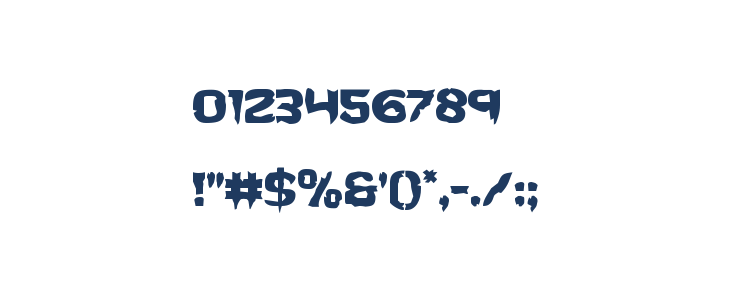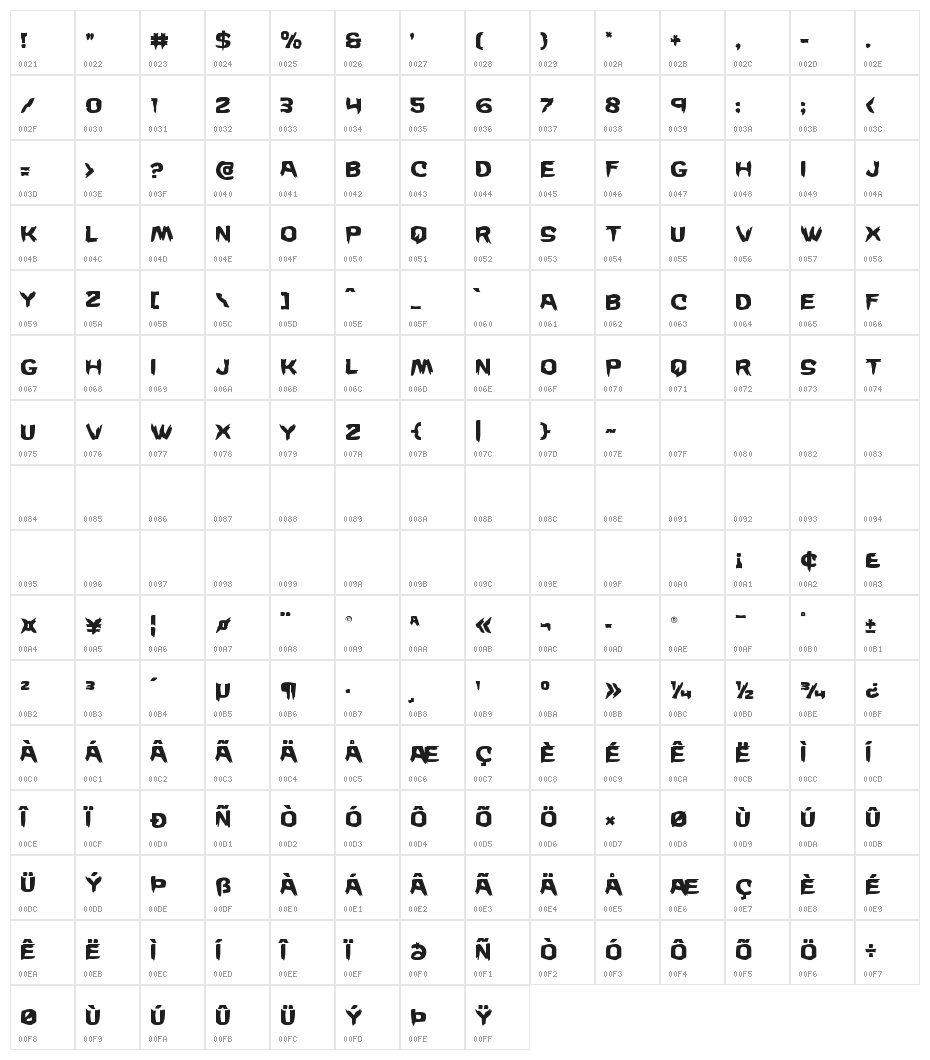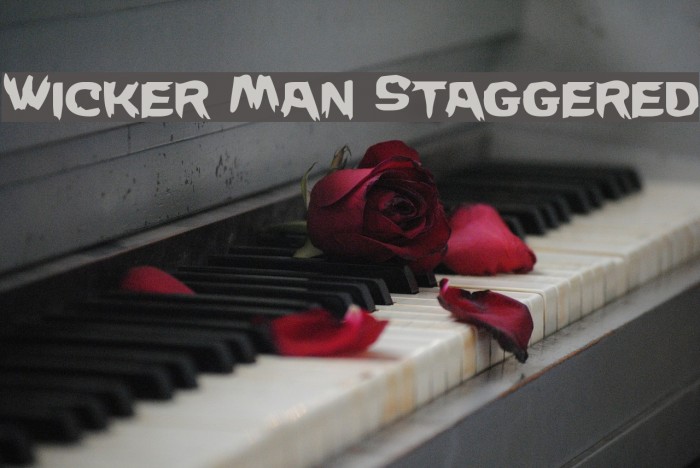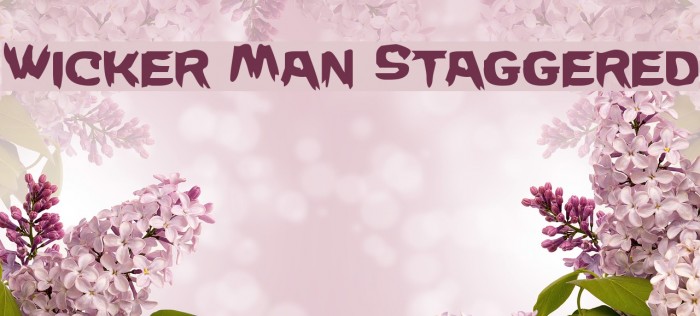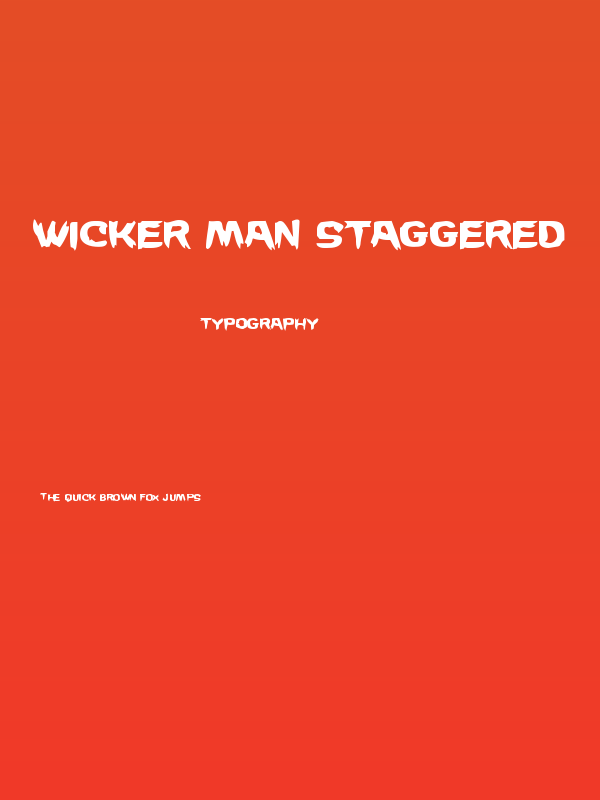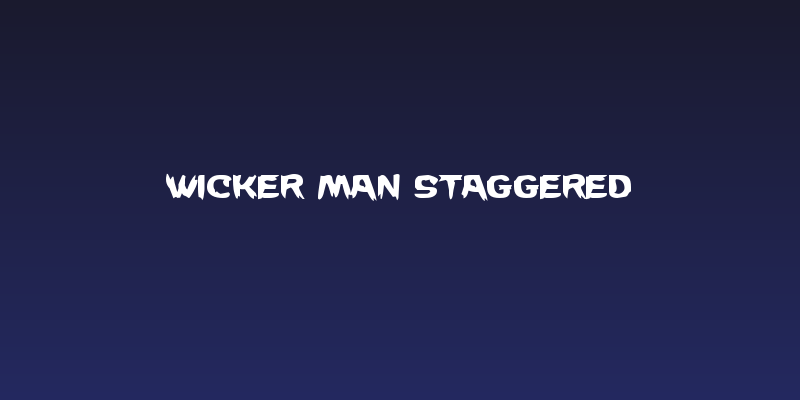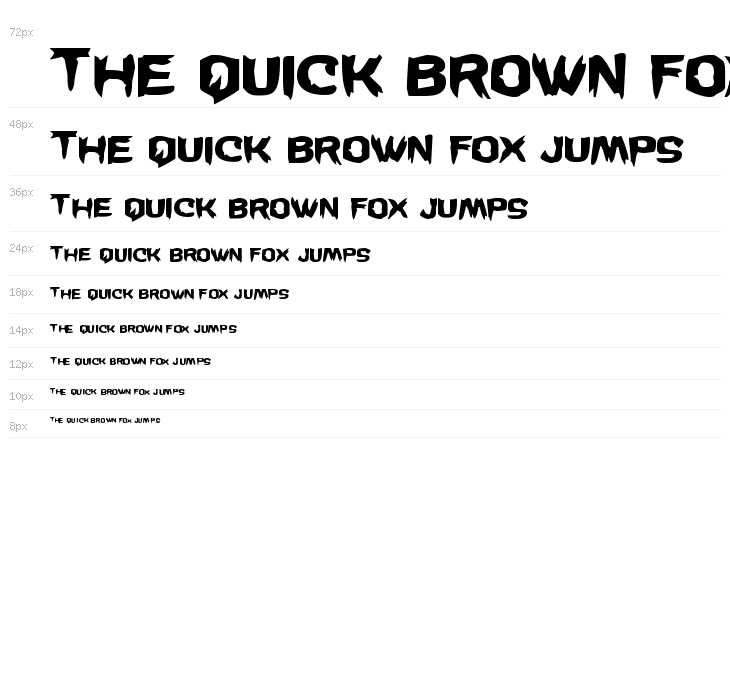
Wicker Man Staggered Font
Wicker Man Staggered Description
This font features a bold and jagged style, reminiscent of a rugged, hand-carved aesthetic. The characters have sharp, angular edges and irregular shapes, giving them a dynamic and edgy appearance. The uppercase and lowercase letters maintain a consistent style, with each character exhibiting unique cuts and angles that enhance the font's dramatic impact. The numbers and special characters follow the same design principles, ensuring a cohesive look across all elements. This font's distinctive style makes it ideal for projects that require a strong, attention-grabbing visual presence.
| Proposed Projects | Ideal for horror-themed designs, movie posters, album covers, and edgy branding projects. |